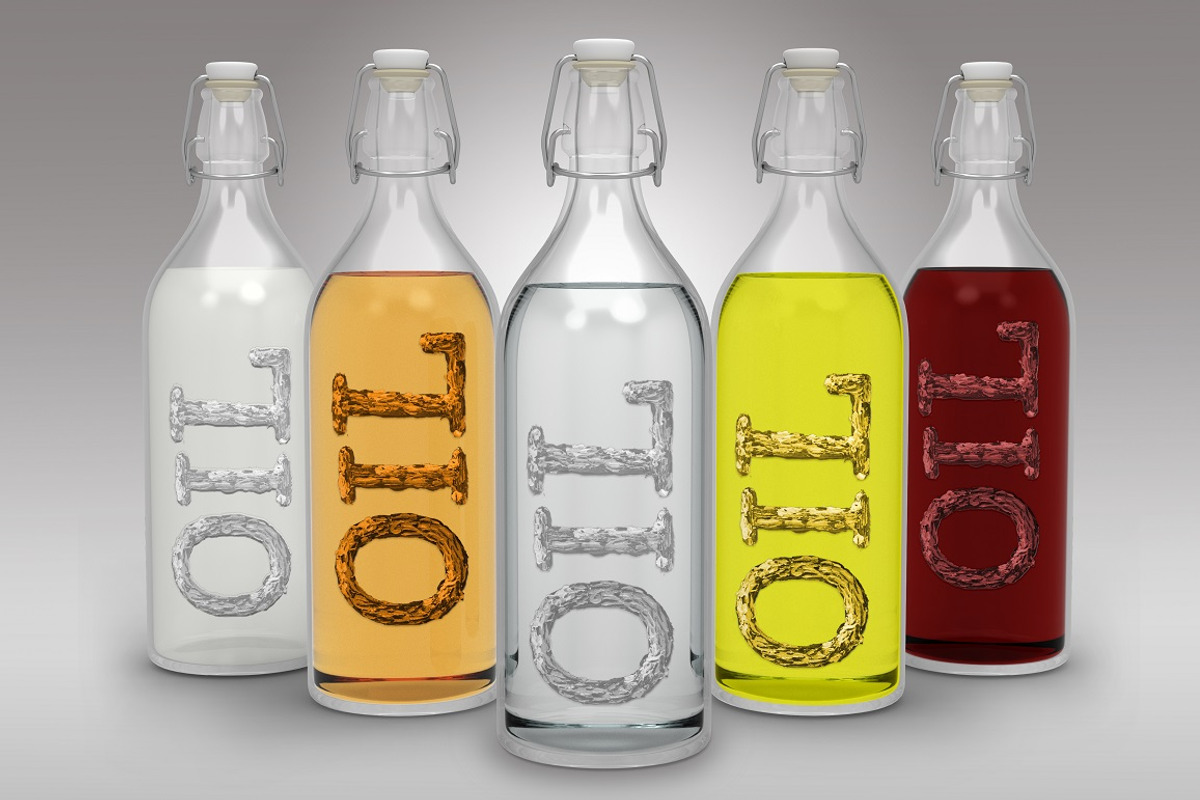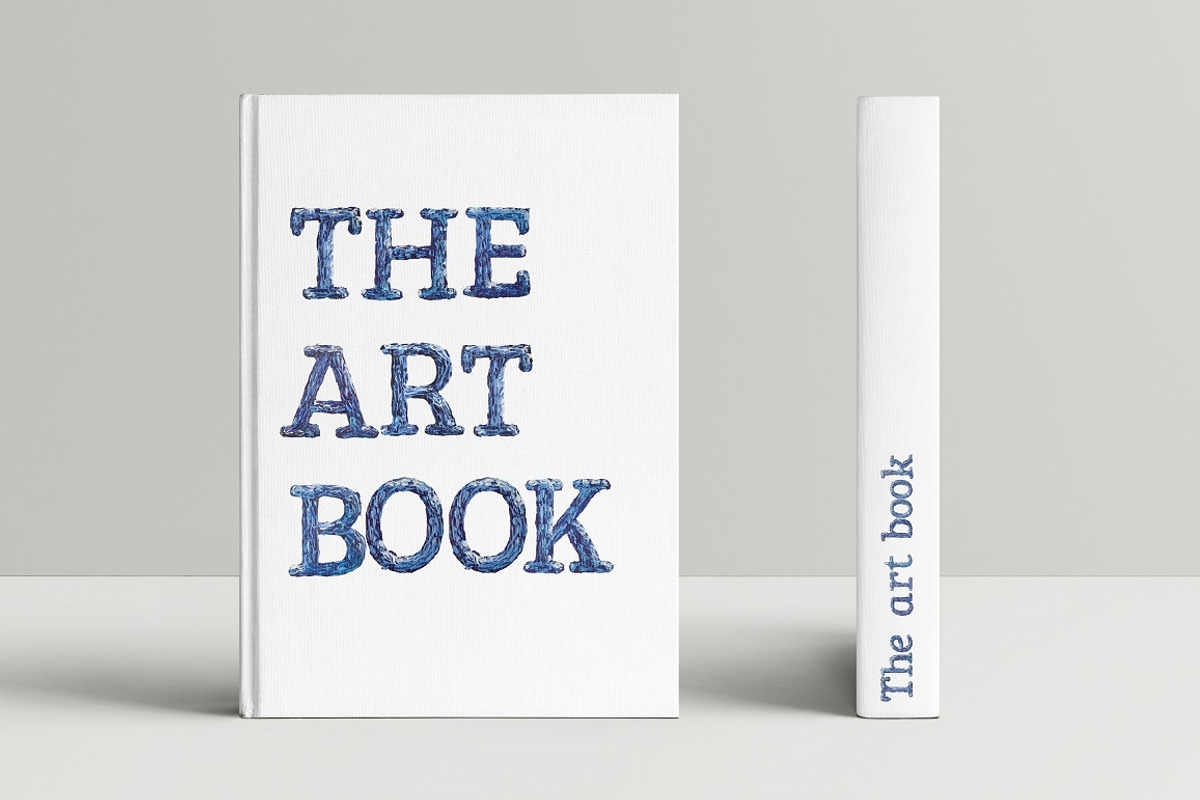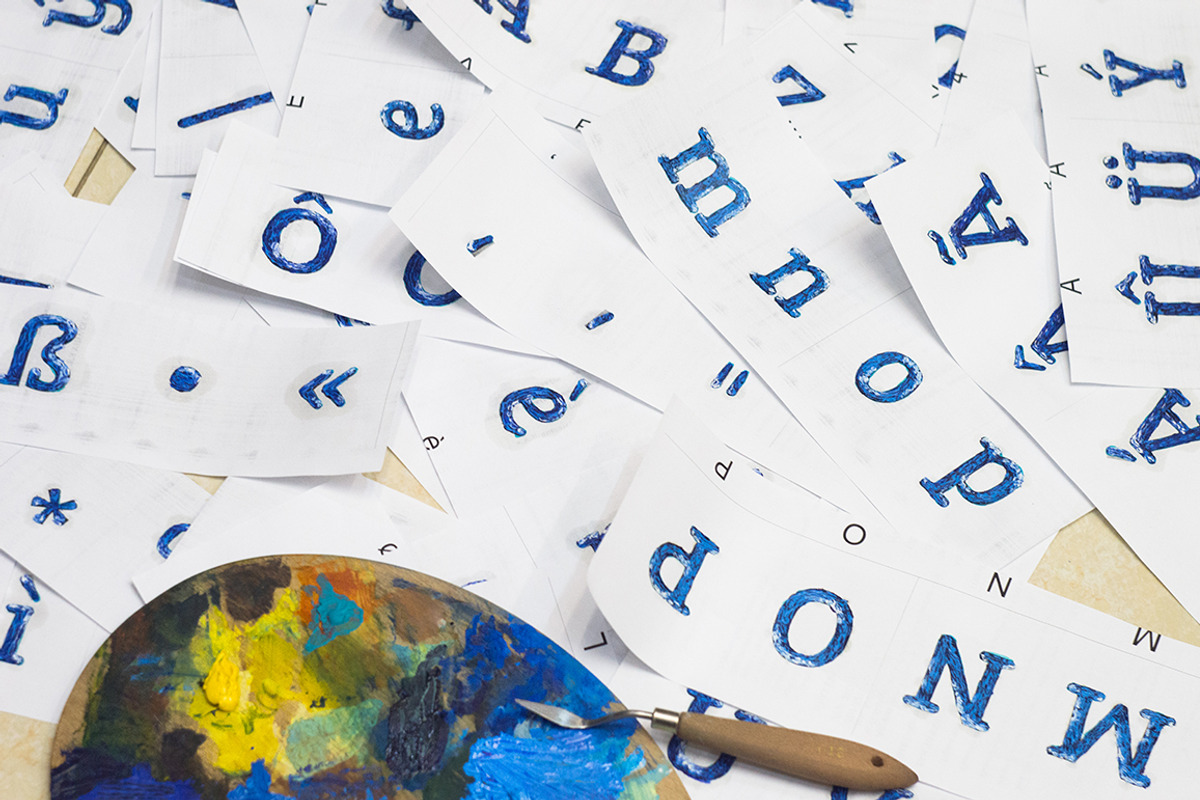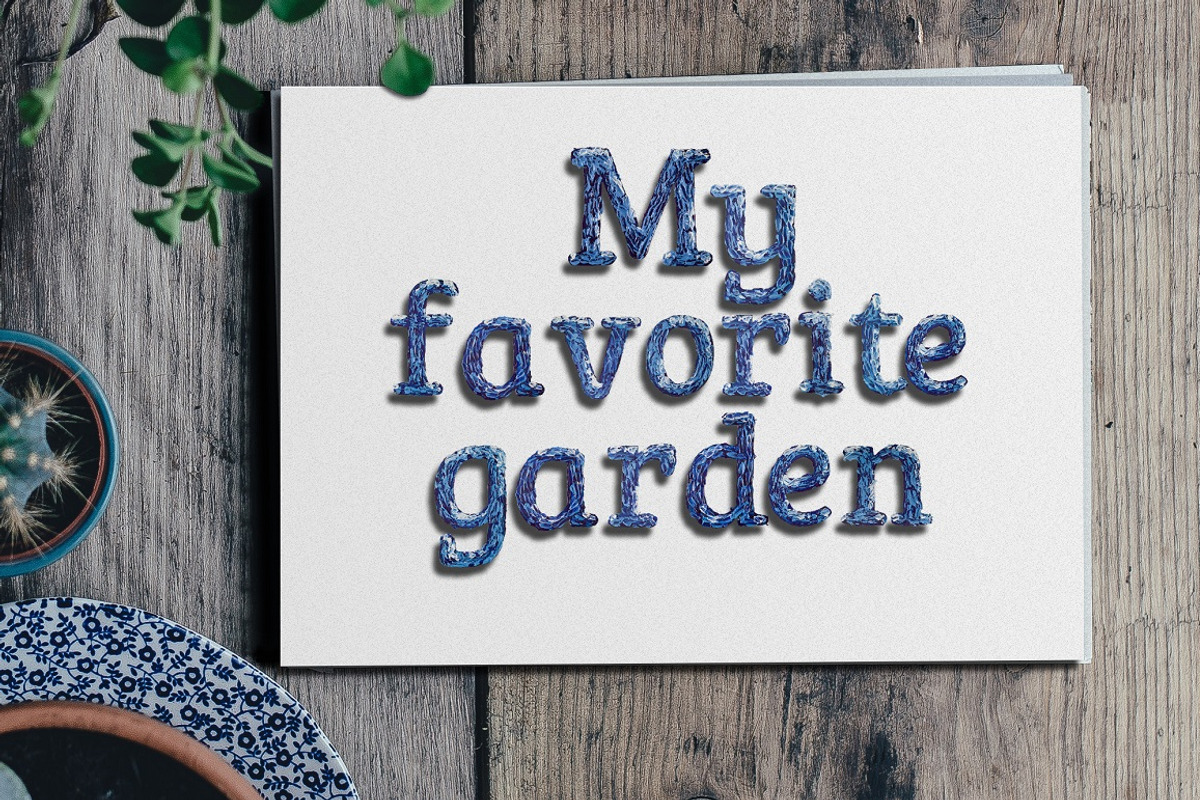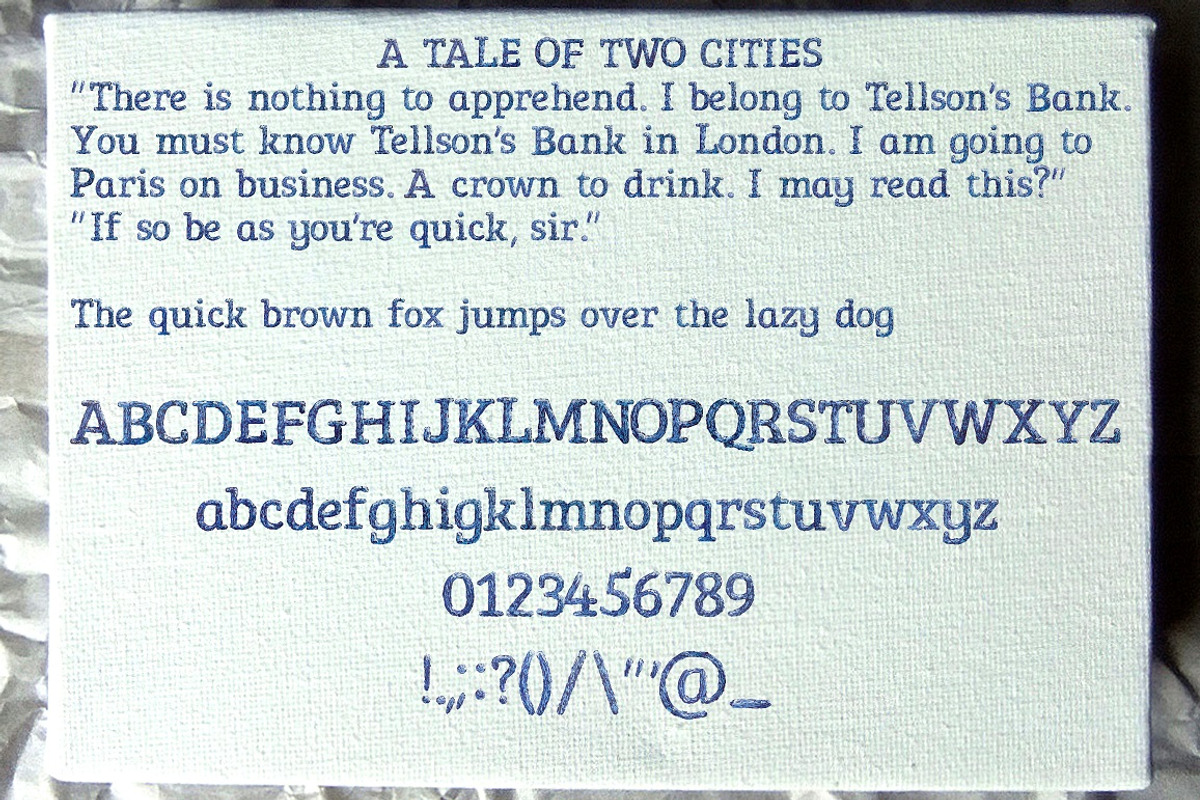
True Oil OpenType-SVG Font
True Oil OpenType-SVG font was carefully crafted from oil painted letters, this is my first hand painted brush font, which was made with new colorful font technology.
True Oil OpenType-SVG colorful font - basic punctuation, like in preview
- That is exactly what You need for art projects, book covers, invitations, package design and advertising, and many more!